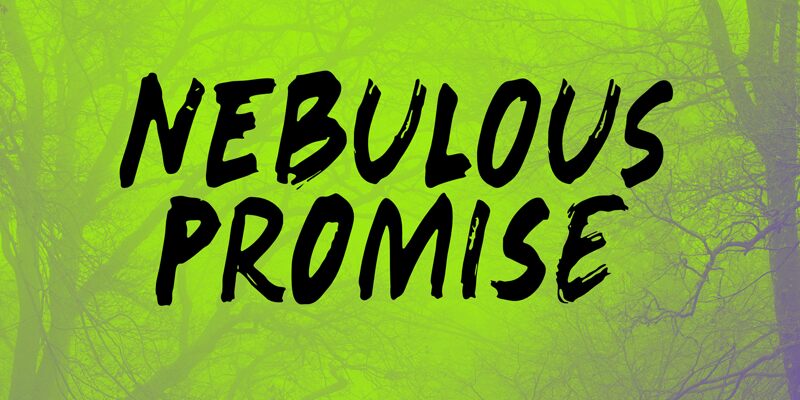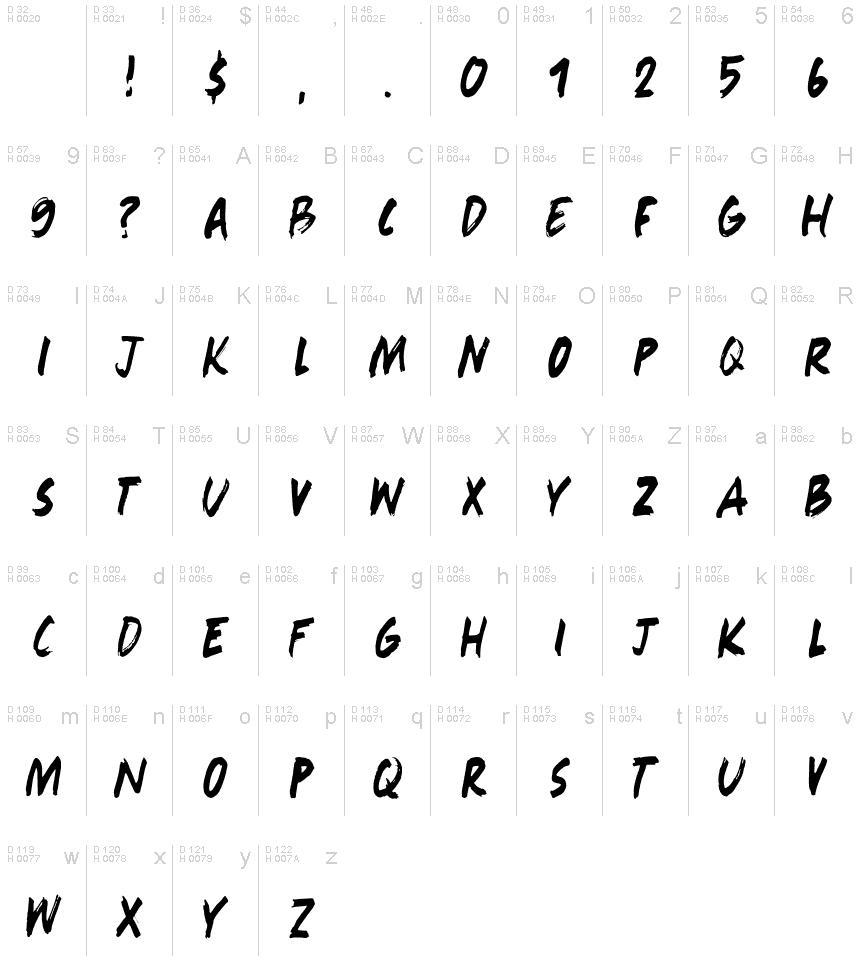
Nebulous Promise, designed by D K, is a brush-style font that offers a unique blend of artistic flair and condensed formatting. With its assertive yet whimsical brush strokes, this font exudes a handcrafted charm that is both modern and expressive. The boldness of the strokes gives each character a pronounced presence, while the condensed width ensures efficient use of space without compromising on impact.
The aesthetic appeal lies in its seemingly spontaneous execution that suggests creativity and movement, making it an ideal choice for projects seeking to convey passion or artistic vision. Whether it's for attention-grabbing headers or for adding a personal touch to branding, Nebulous Promise stands out with its distinctive style.
Its versatility extends to various creative applications-from graphic design and advertising to social media graphics and packaging-wherever there's a need for type with personality. Nebulous Promise is not just another font; it's a testament to the beauty found in controlled chaos, perfect for making bold statements in design while maintaining legibility and cohesion.